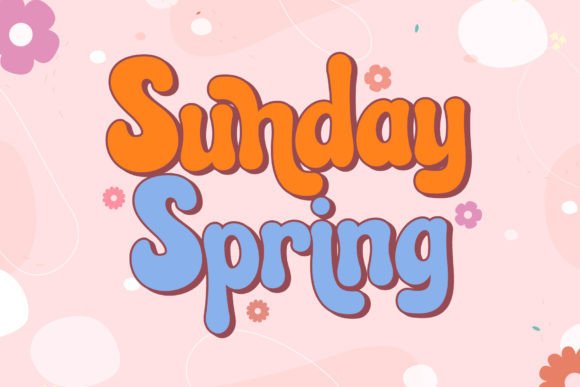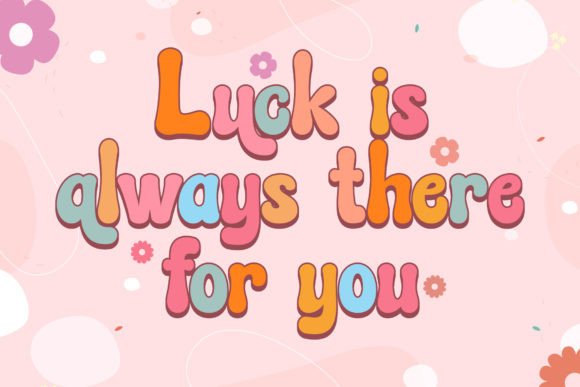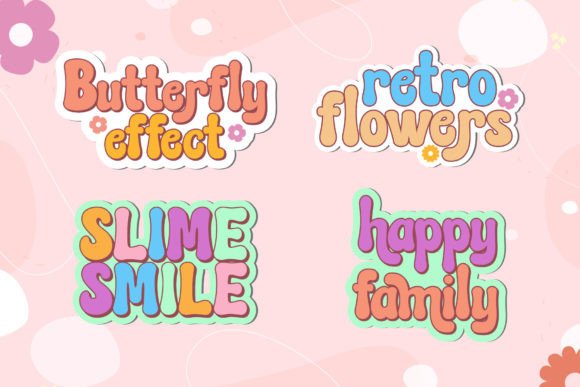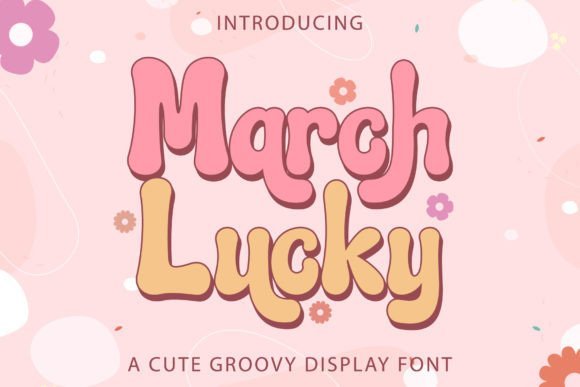
Introduction to March Lucky Font
March Lucky is a versatile, stylish, fun, and playful retro display font, suitable for a wide spectrum of applications such as greeting cards, t-shirts, logos, and more.
Add it to any of your creative projects, and it will make them stand out from the crowd .
March Lucky Font offers exceptional quality and versatility, making it a valuable addition to your design toolkit. Whether you’re creating for personal projects or commercial use, March Lucky Font delivers professional results.